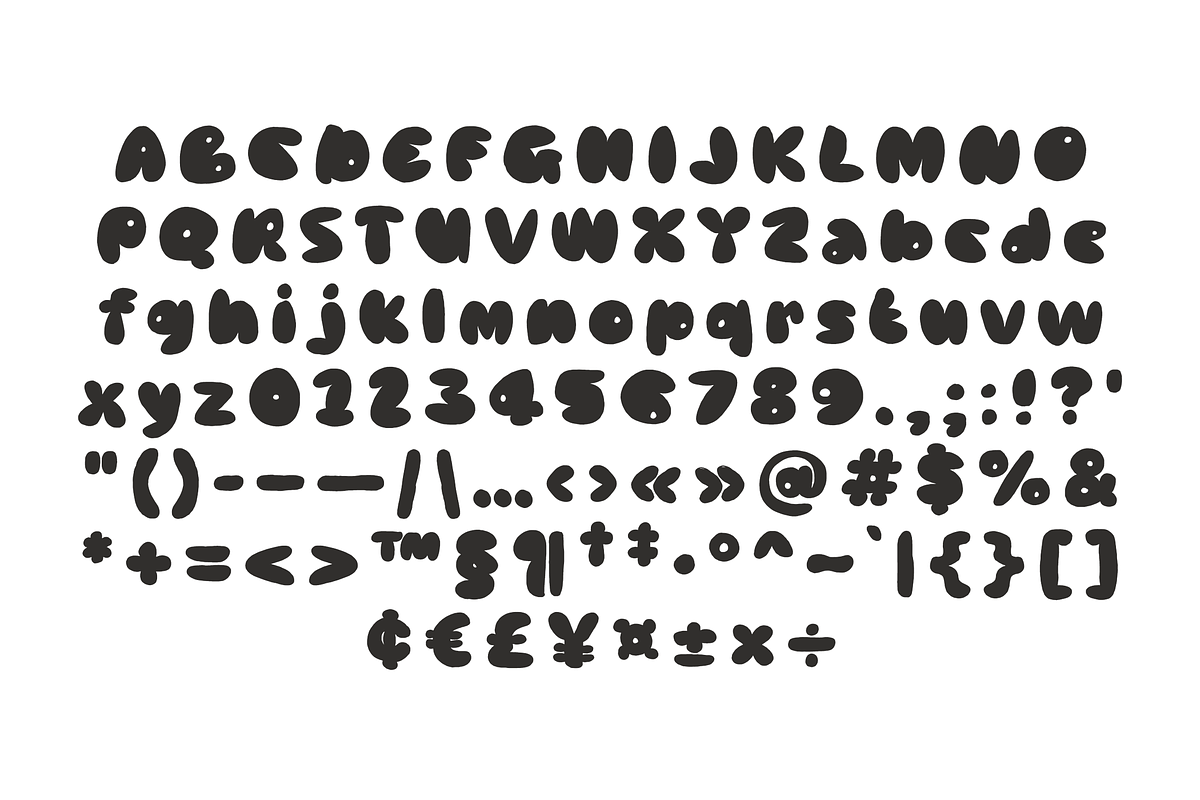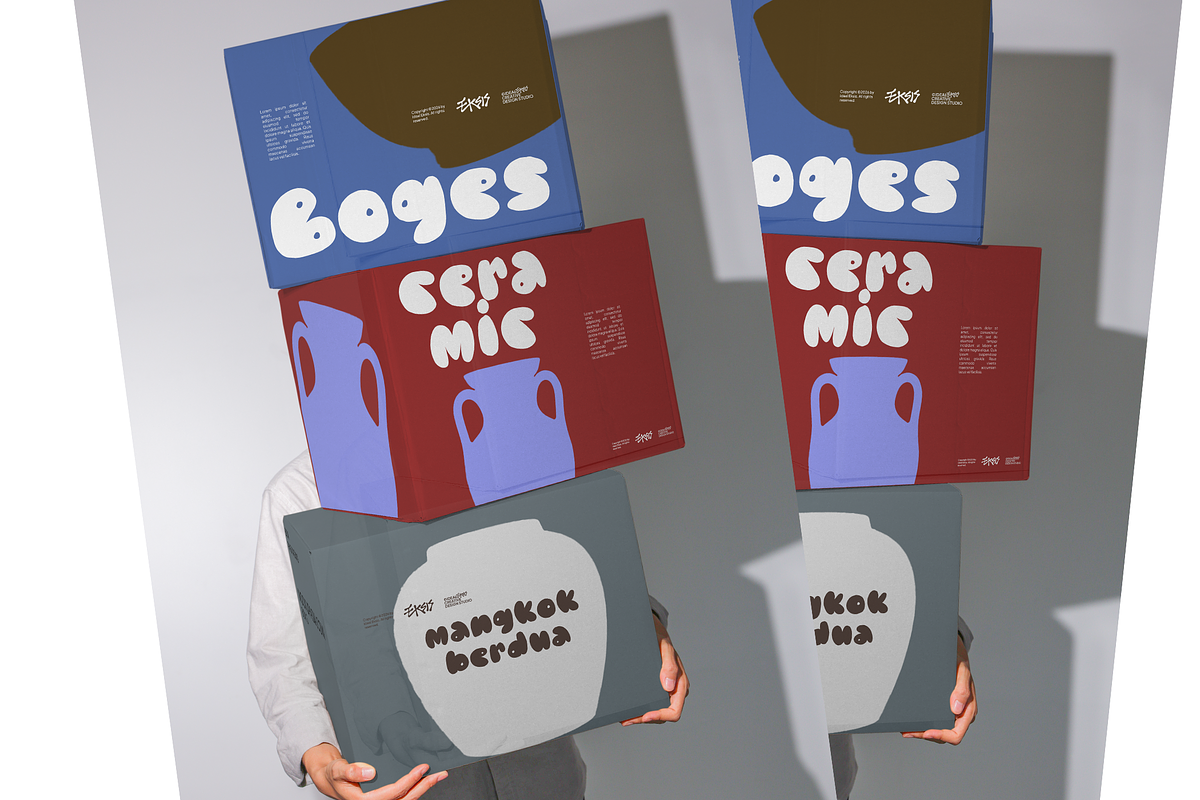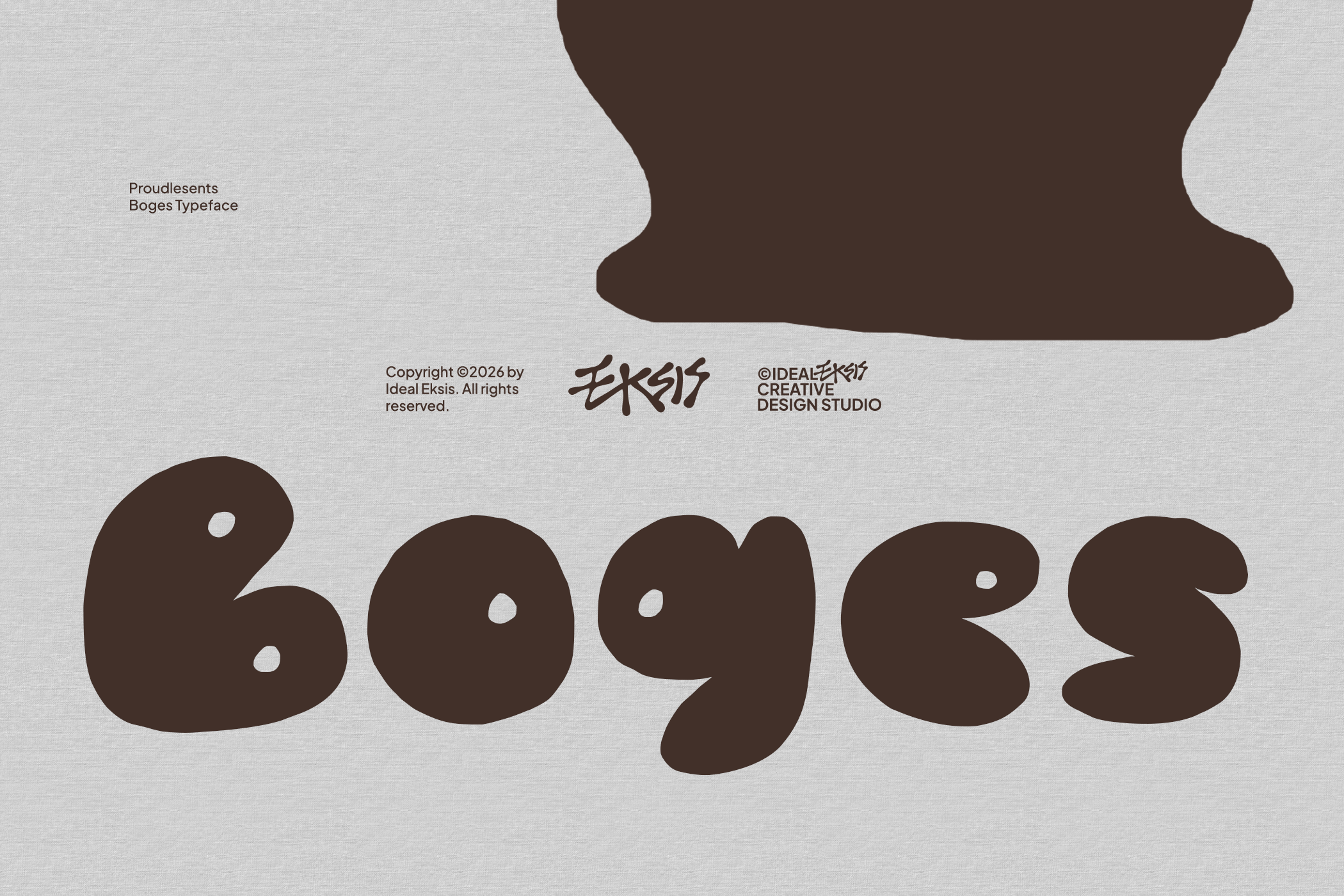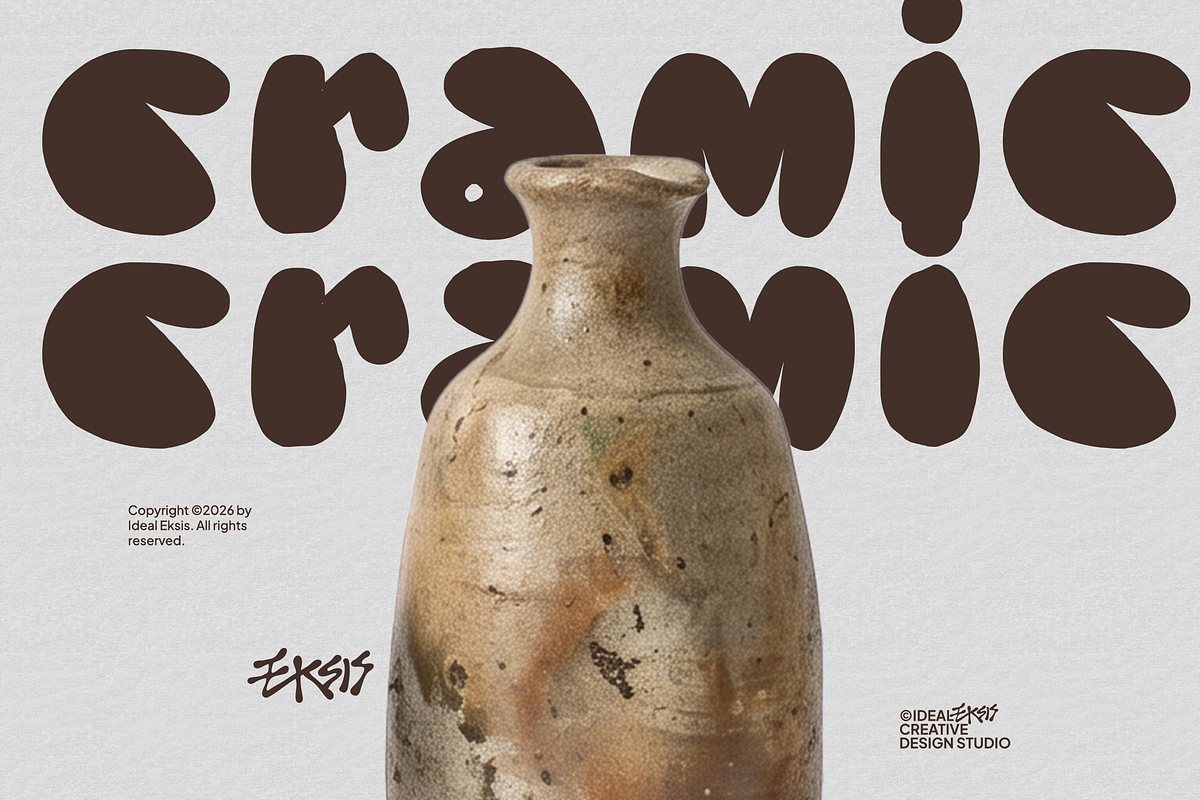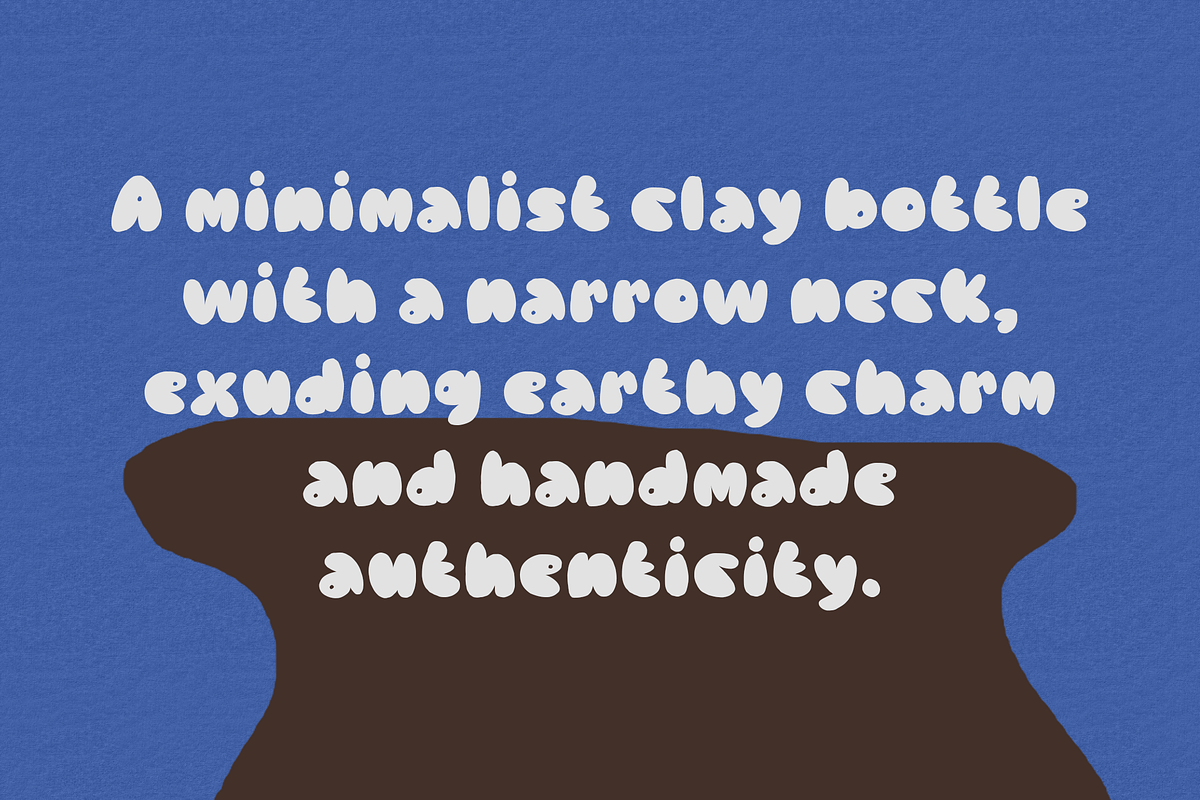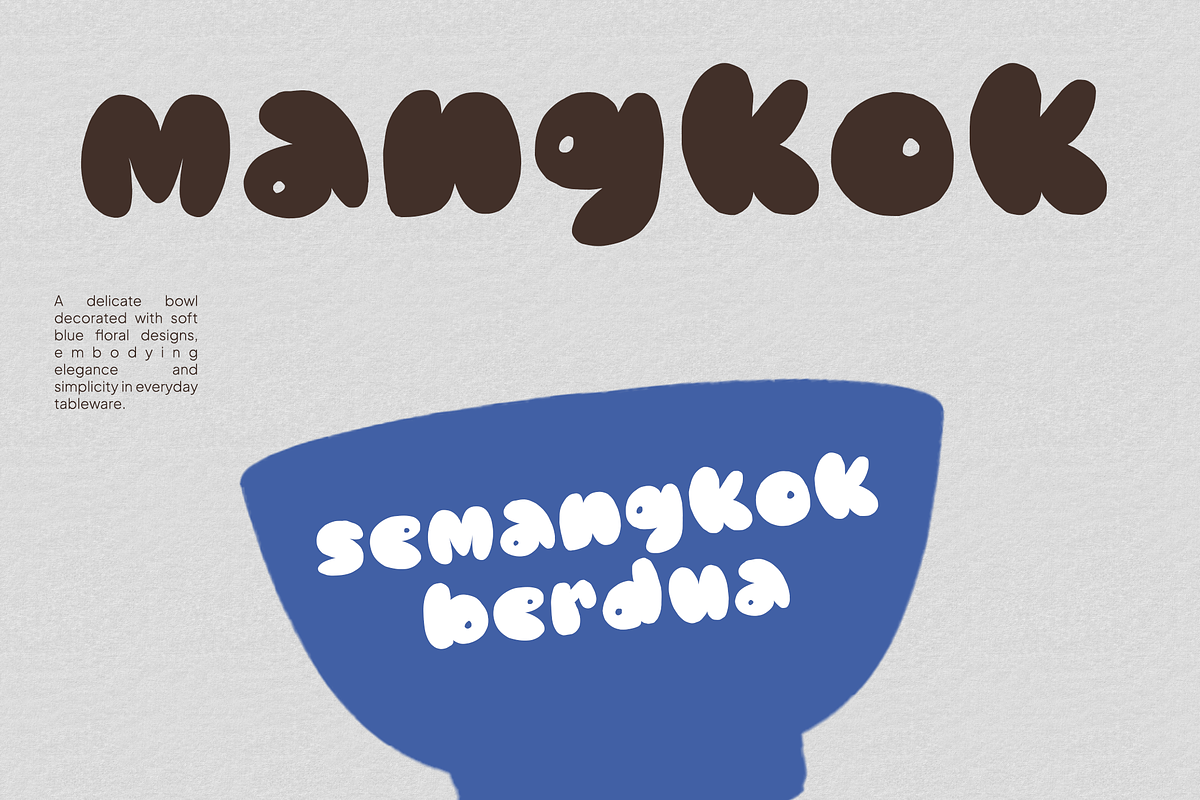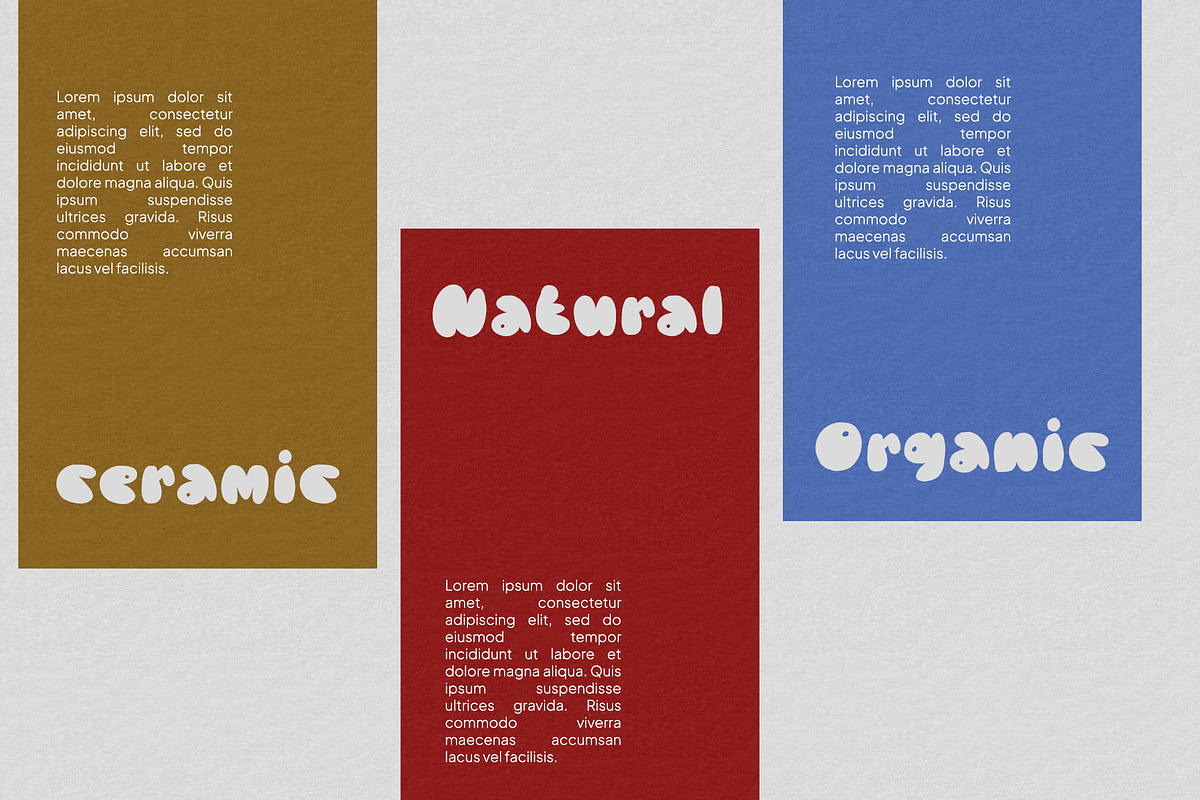
Boges Typeface
An ultra-bold, expressive display typeface featuring organic, bulbous letterforms. The characters exhibit extremely thick strokes with minimal, almost microscopic counter spaces, creating a puffy, liquid-like aesthetic. Its fluid contours and soft, rounded terminals evoke a playful, retro-psychedelic vibe, making it exceptionally suited for high-impact branding, poster design, and creative packaging.
+ Uppercase
+ Lowercase
+ Numerals
+ Punctuation